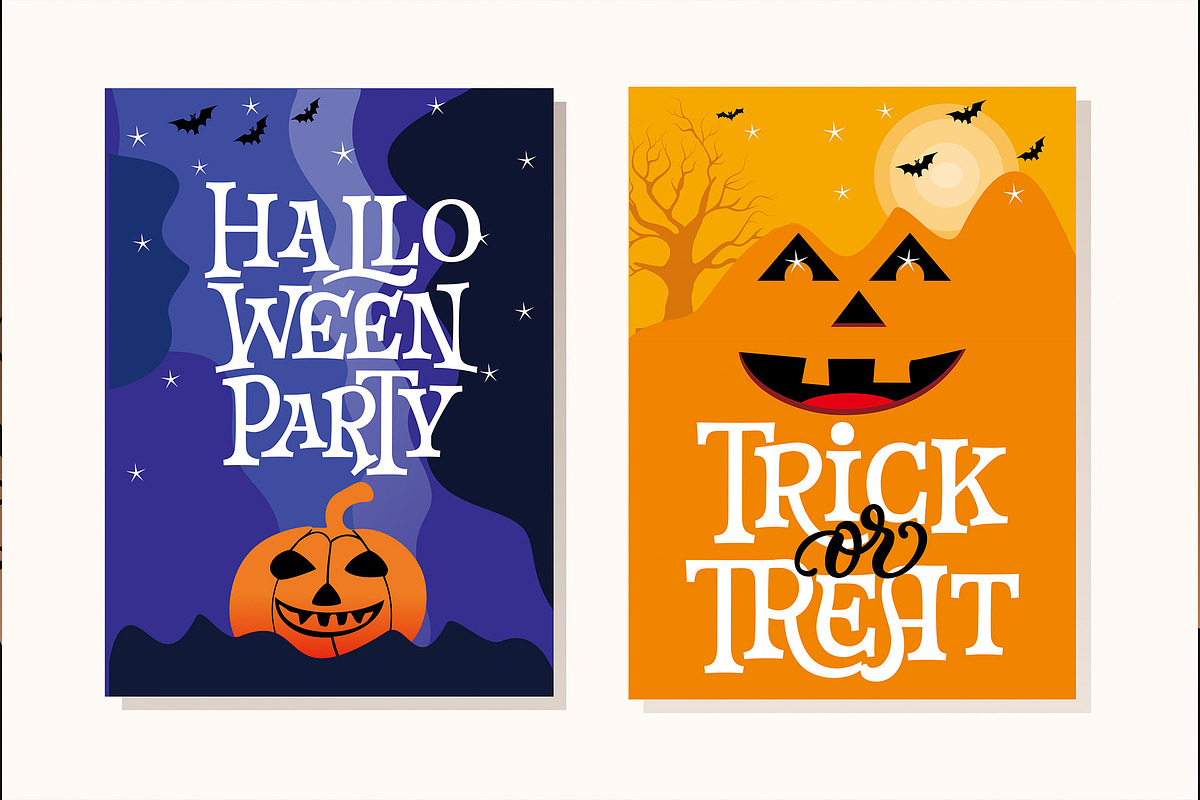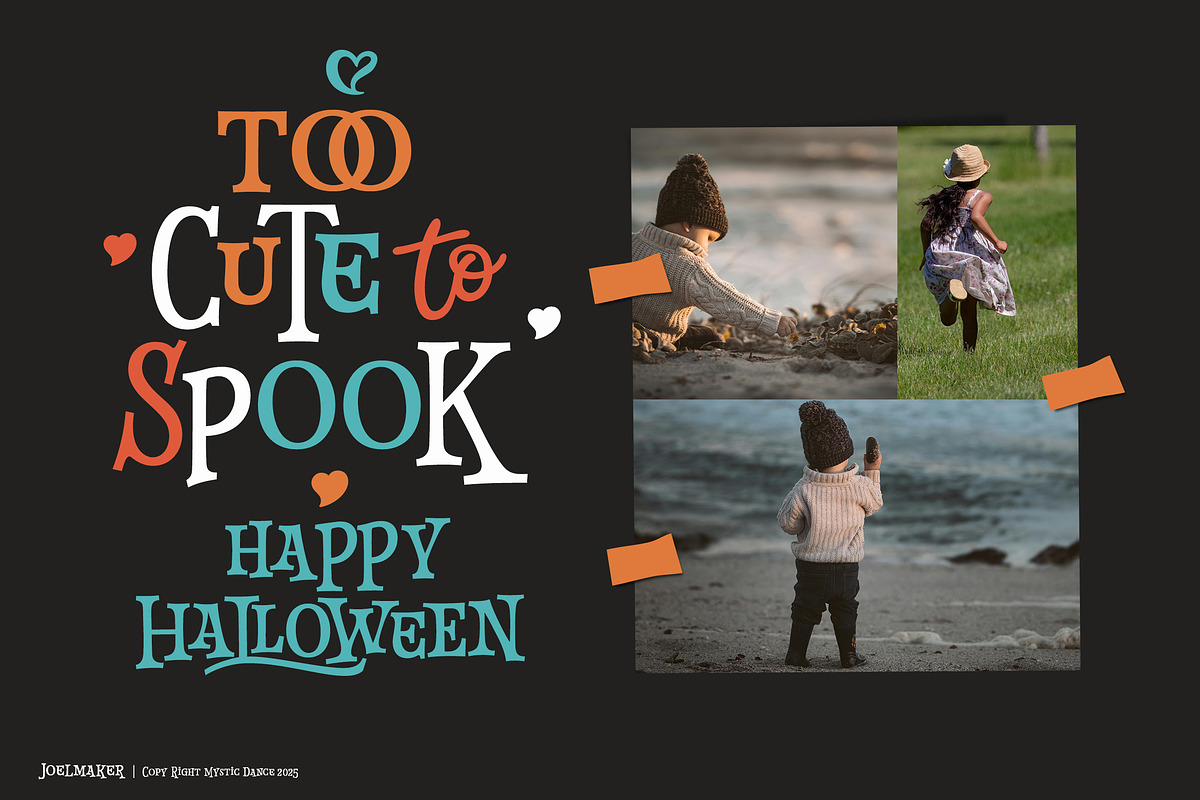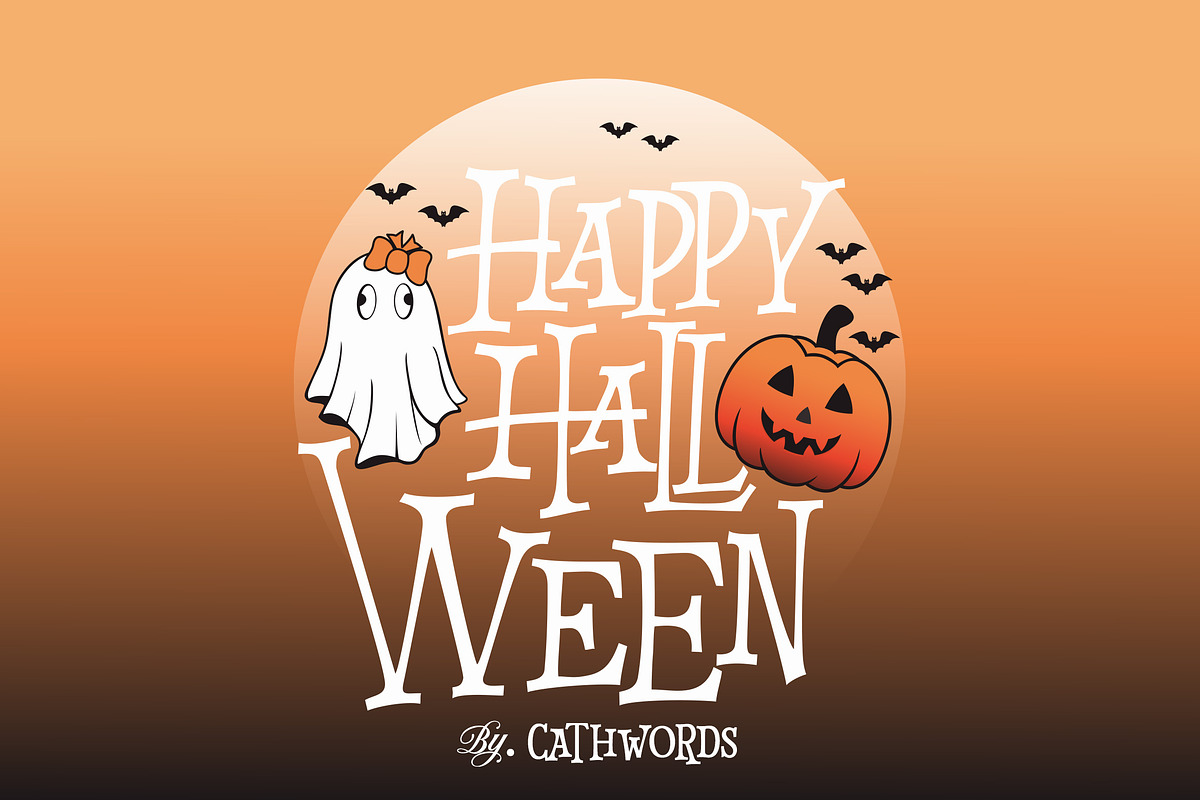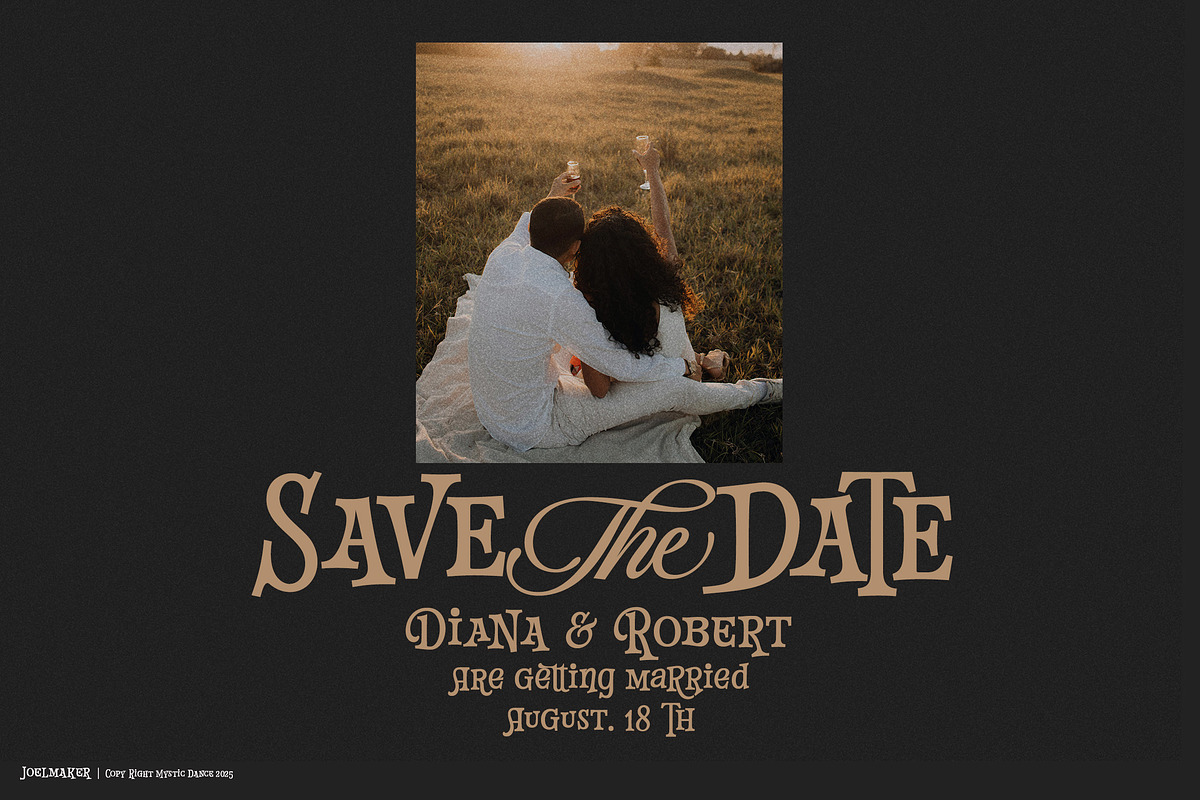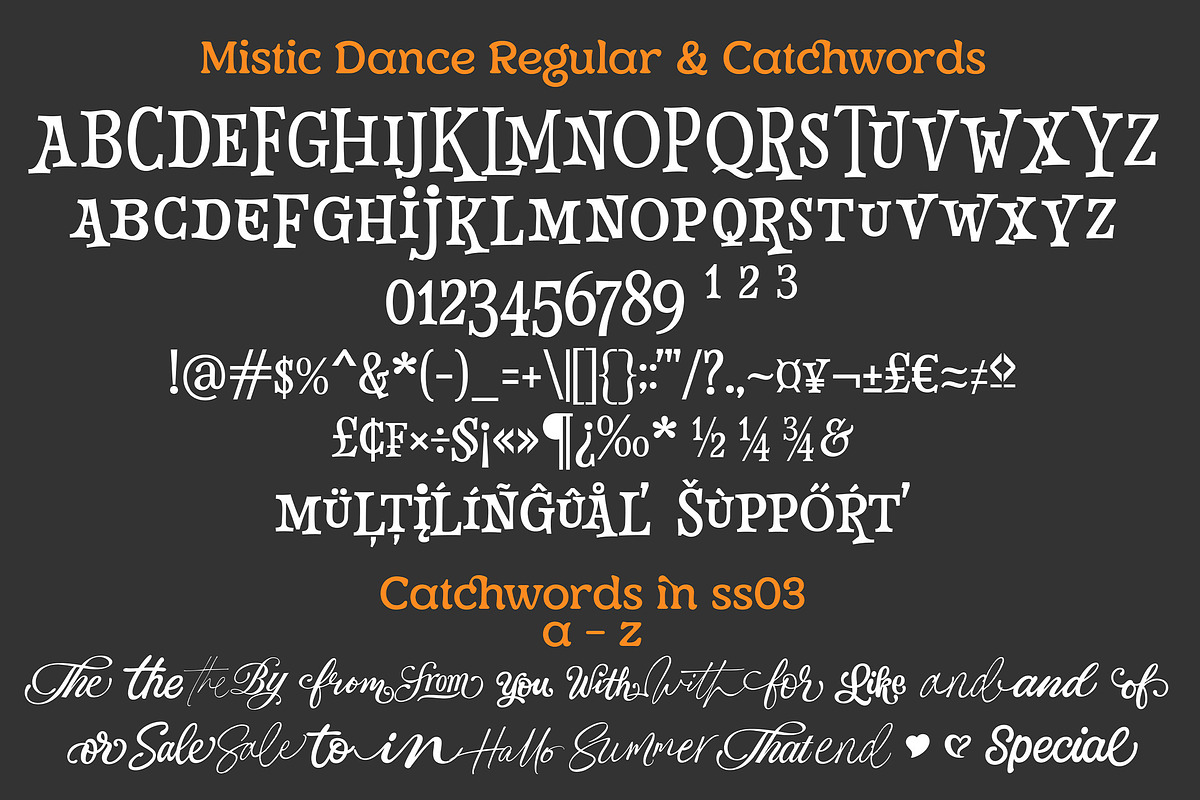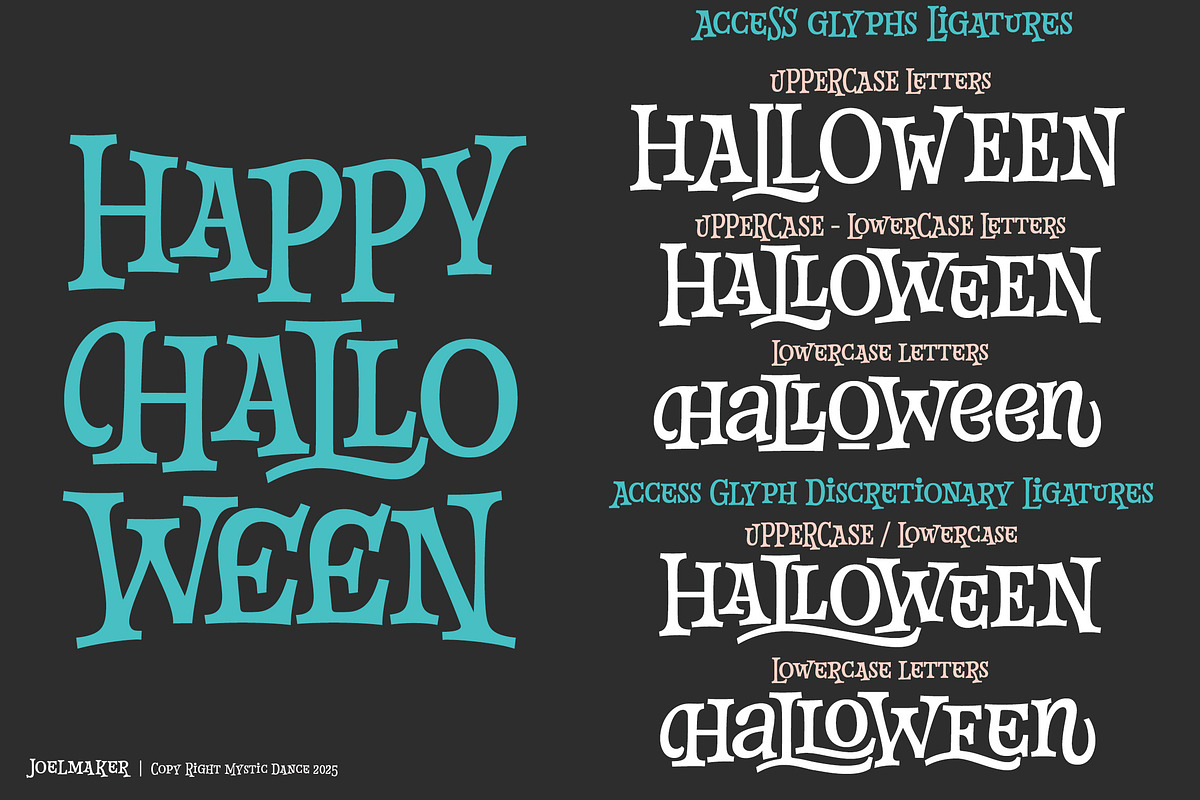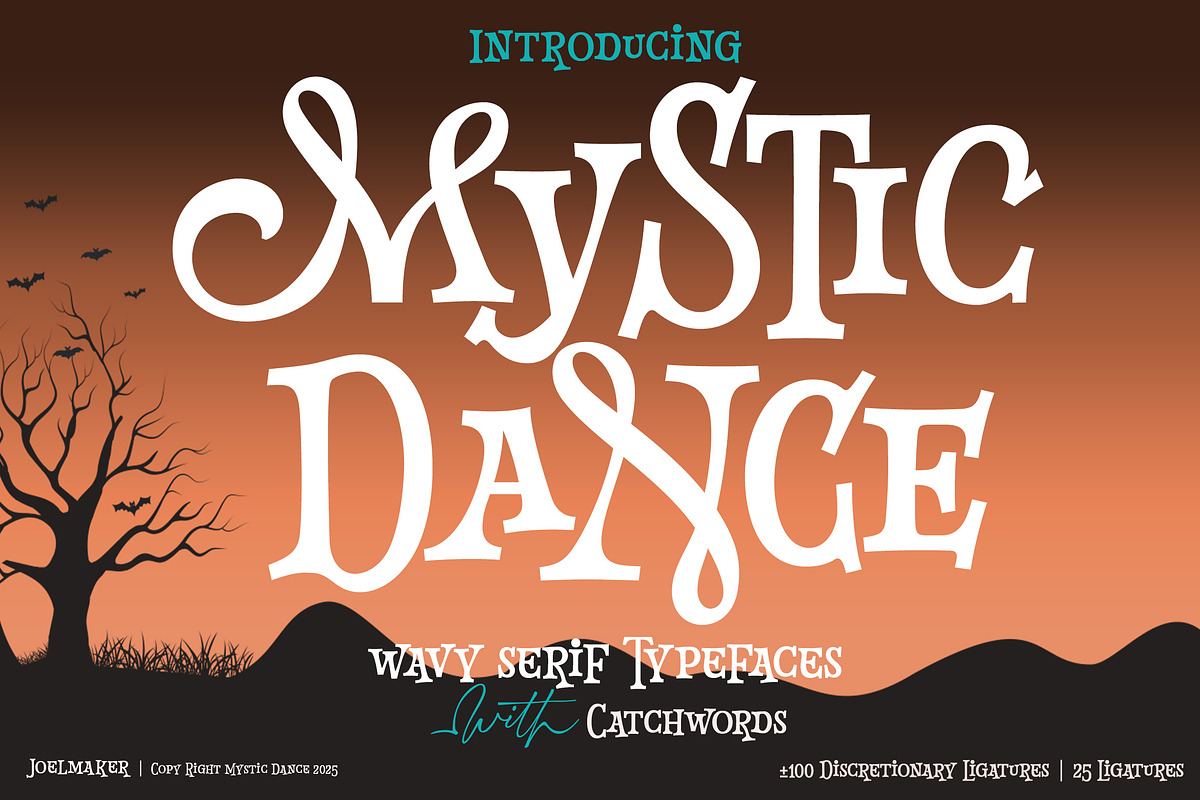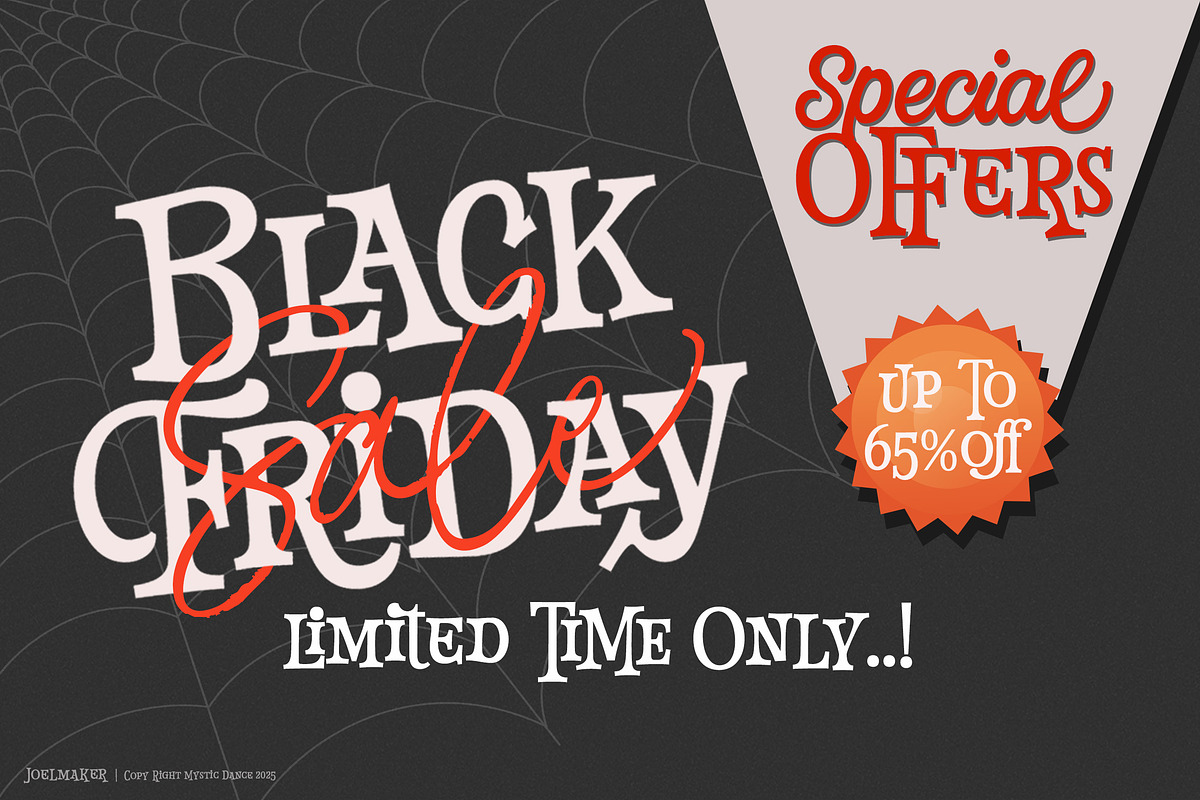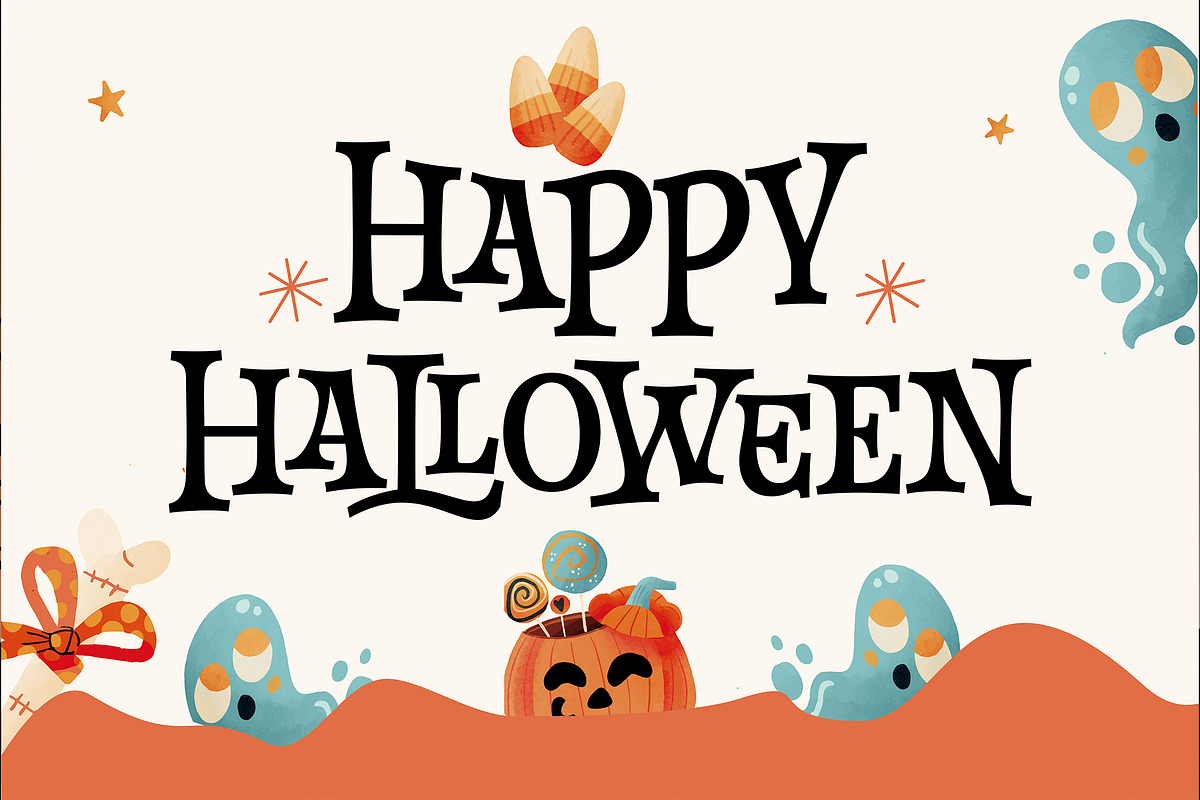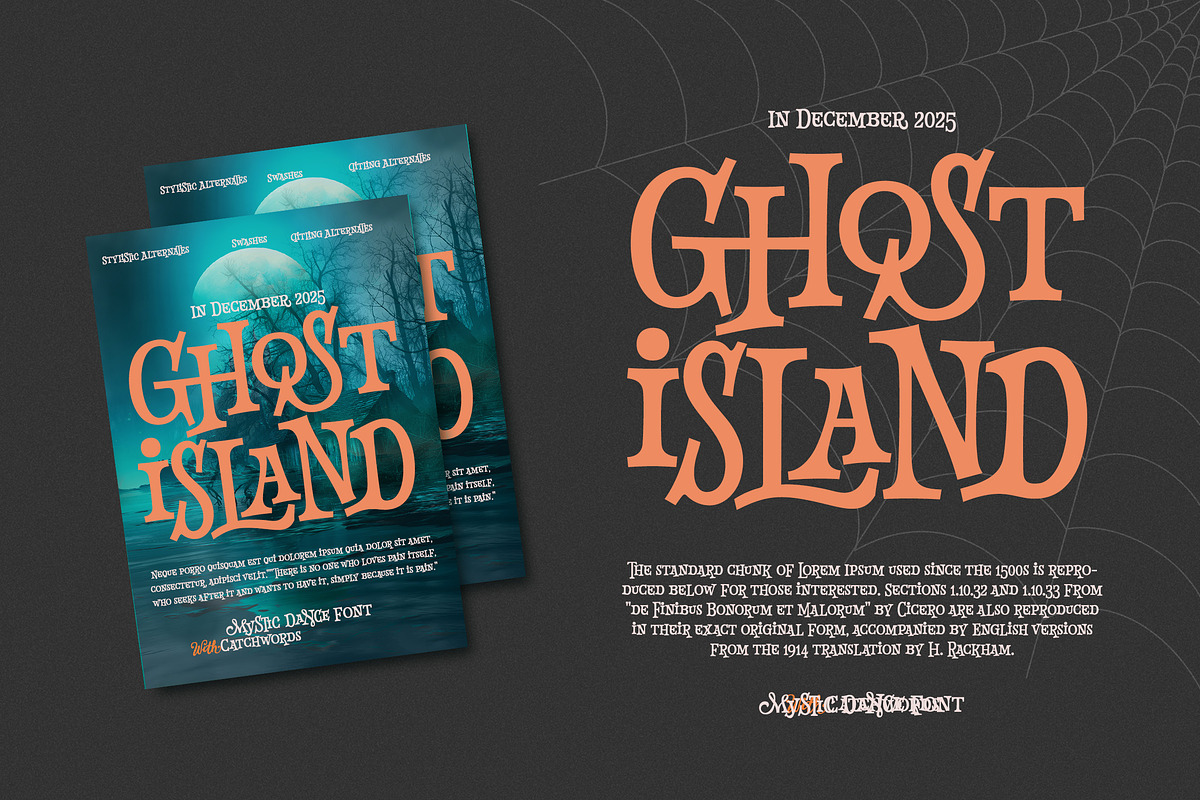
Mystic Dance
Mystic Dance is a wavy serif typeface that blends elegance with a touch of mystery. Its flowing, whimsical letterforms create a dynamic rhythm that feels both playful and enchanting — perfect for designs that need a magical, fantasy-inspired atmosphere and captures the spirit of motion and mystique in every curve.
Featuring over 100 discretionary ligatures and 25 standard ligatures, Mystic Dance offers endless creative possibilities. It also includes beautifully crafted catchwords, enhancing your typography with decorative flair. Ideal for posters, book covers, Halloween themes, vintage logos, and artistic titles, this typeface adds a distinctive charm to any project.